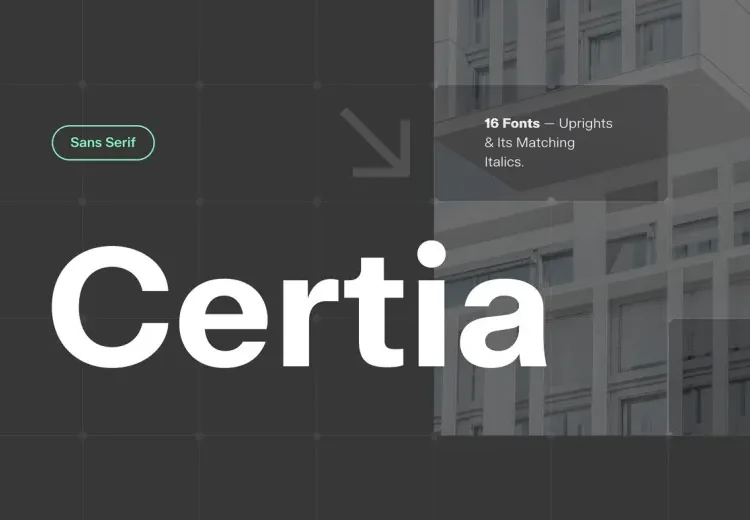
Certia Font
Certia is an elegant and versatile font family that beautifully balances design with functionality. It comprises 16 fonts, including a refined italic version, all meticulously crafted to ensure maximum accessibility without sacrificing its sophisticated aesthetic. This comprehensive font family is designed to meet a wide array of communication needs across different languages and cultures, making it a truly global typeface.
Key Features of Certia:
• Elegant Design: Certia features a sleek and sophisticated design that exudes elegance in every character. Its clean lines and well-proportioned forms make it suitable for a wide range of design projects.
• 16 Font Styles: With 16 fonts in the family, including an italic counterpart, Certia offers a broad spectrum of styles to choose from, allowing designers to find the perfect match for any project.
• Wide Language Support: Certia is built with extensive language support, making it an excellent choice for international projects. Its versatility ensures that it can communicate messages clearly and elegantly across different languages.
• Versatility: Whether used for editorial work, branding projects, or digital interfaces, Certia seamlessly integrates into various design contexts, providing a consistent and polished appearance.
• Timeless Appeal: Certia embodies the art of craftsmanship in typography, making it a timeless and adaptable choice for designers who seek a typeface that will remain relevant and stylish across different trends and applications.
Ideal Uses for Certia:
• Editorial Work: Certia‘s clean and elegant design makes it perfect for editorial layouts, bringing sophistication to magazines, books, and other printed materials.
• Branding Projects: For brands looking to convey a sense of timeless elegance and professionalism, Certia is an ideal choice. Its versatility allows it to adapt to various branding needs, from logos to packaging.
• Digital Interfaces: Certia is equally effective in digital contexts, offering a readable and stylish typeface for websites, apps, and other digital platforms.
• Global Communications: Thanks to its wide language support, Certia is well-suited for international projects, ensuring consistent and clear communication across different languages.